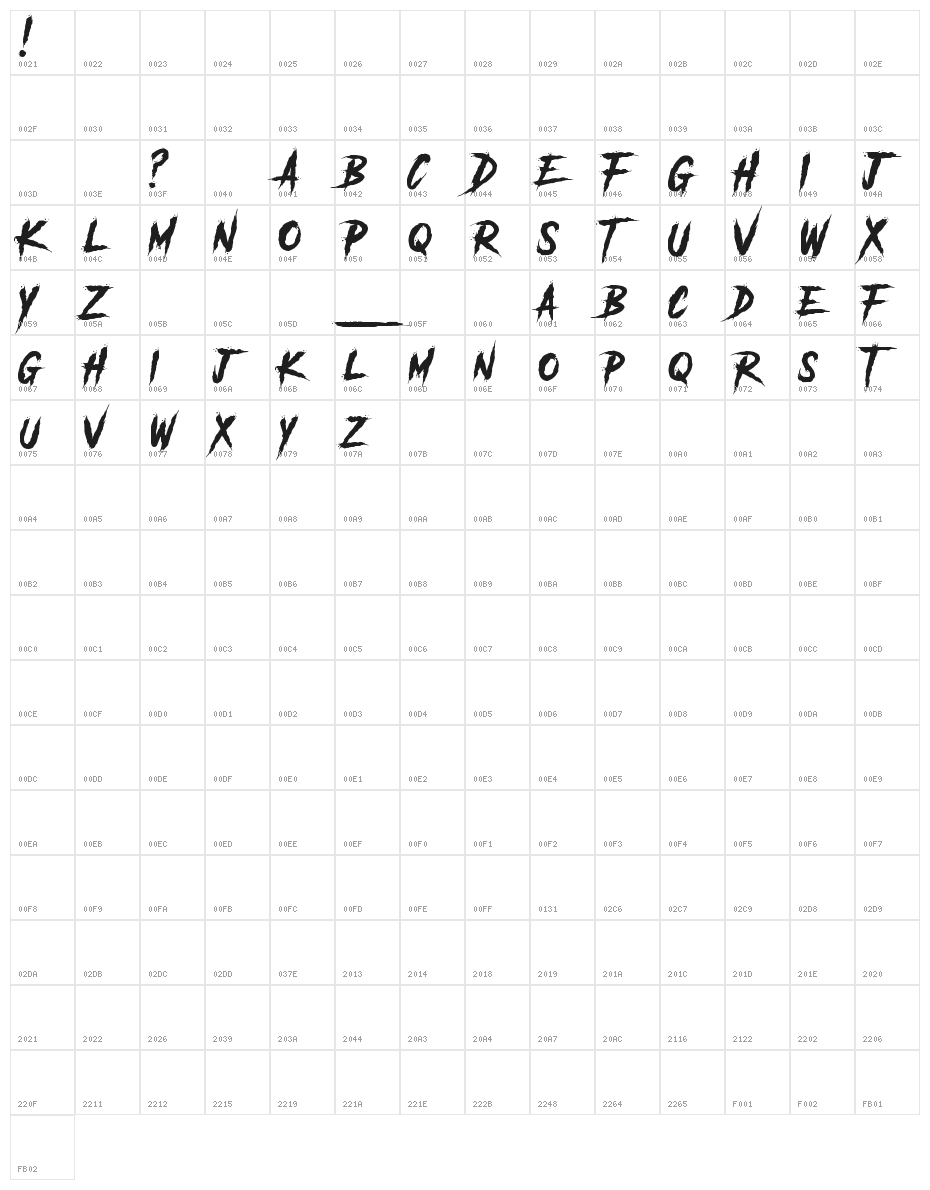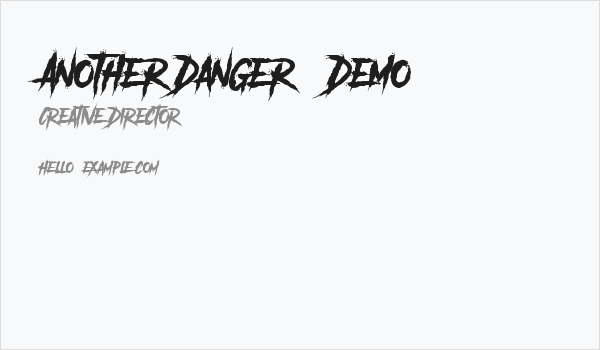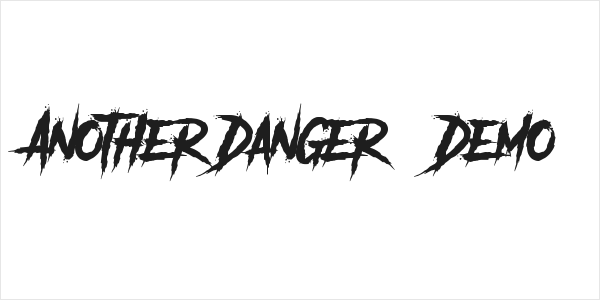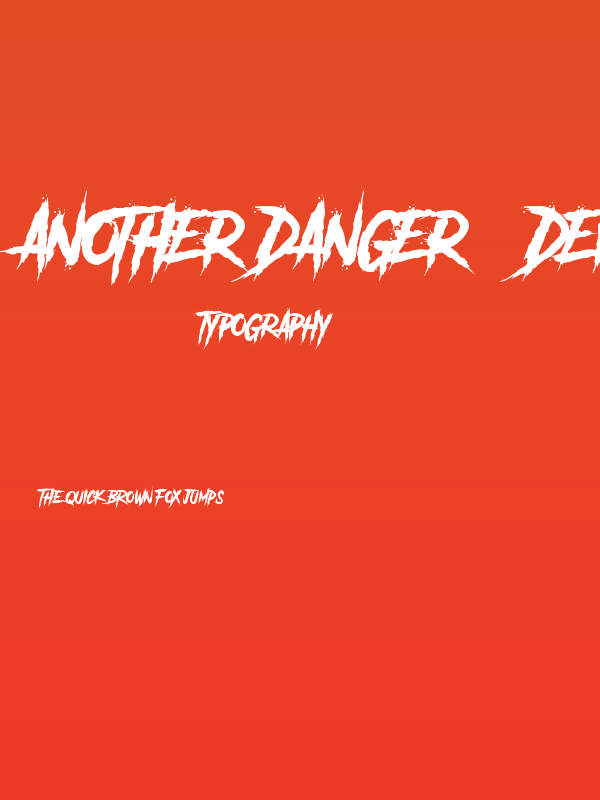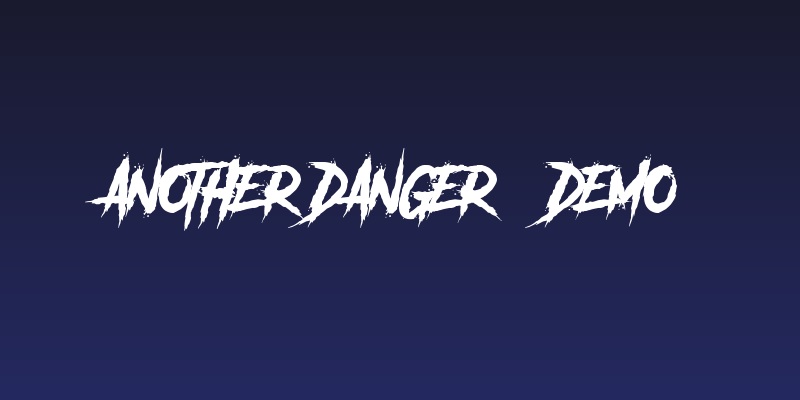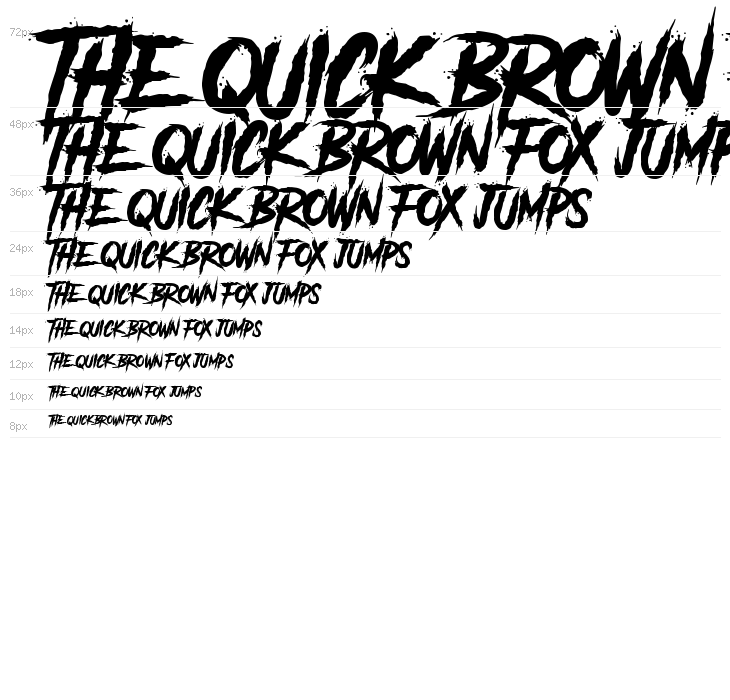
Another Danger - Demo Font
| Stile generale | Modern, Edgy |
| Caso d'uso | Logos, Posters, Headlines |
| Progetti proposti | Perfect for music album covers, extreme sports branding, horror movie posters, and edgy fashion labels. |